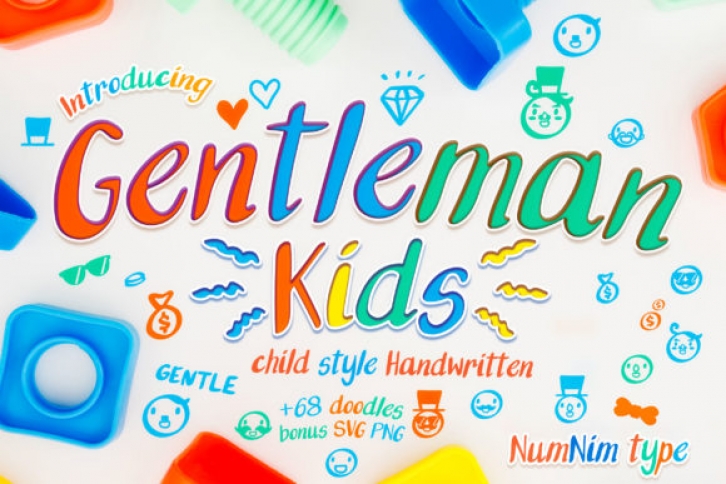
Gentleman Kids is a joyful and delicate handwritten font with cute doodle elements. This font is perfect for holiday as well as children themed designs, especially when combined with bright colors. The perfect font for greeting cards, social media posts, and so many other crafts and designs!